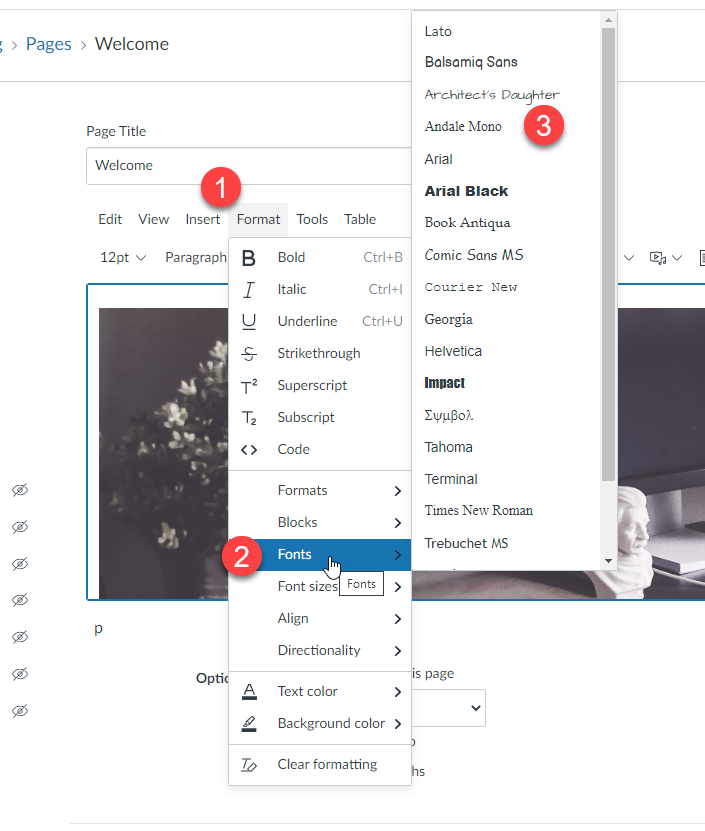
How do I change the font of what I am typing for a post on canvas?
Unfortunately, there's no way to change the font/typeface that you are using. There might be a way to do it with the HTML editor, but you run into accessibility issues. With that said, using the Rich Content Editor (https://community.canvaslms.com/docs/DOC-10728-67952720342), you can change the style of your text. You have your standard bold, italics, underline as well as alignment and header options.
Ok then I guess the question is: Why not? When will Canvas have better fonts?
I'm not sure what you mean by accessibility. I work with students with learning disabilities and the suggested fonts are sans serif like Arial. That would make reading text in Canvas more accessible.
If the font is so unpleasant so that the faculty will not post content, then there is a problem. Faculty need to be able to change the font so that it is acceptable. Otherwise, we may need to just attach lesson plans as Word documents rather than use the features in the Canvas learning management system.
I may have responded to someone who is not part of the team that can make changes. In Sakai, I was able to change the font in my Lessons and other parts of Sakai. It is critical that the fonts be acceptable to faculty; if the fonts are so unpleasant that we choose not to post content in Canvas, then what is the use of the learning management system? Please give us the option of selecting the font type.
I think some research went into an ideal font that was accessible.
At first it irked me that I didn't have a choice of font. Now I'm grateful. There's enough going on without having to ponder fonts. As @kenneth_rogers mentioned there are options within the one font to give it a bit of zhoosh.
I enjoy being creative within Canvas and feel that the font they chose suits the environment.
I posted a video this week that explores some of the font and typography options available in Canvas, both in the Rich Content Editor (RCE) as well as some things we can do in the HTML editor.
Within the RCE, the font family options are available in the Format tab. It's not the most robust library, but there are a good variety of serif and sans-serif options available.